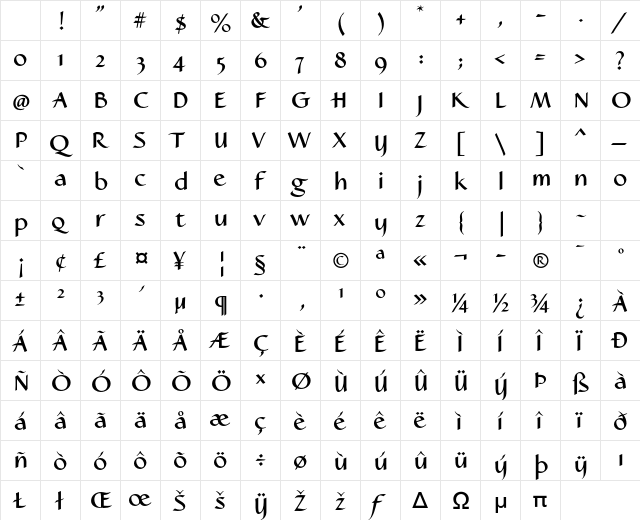
Caterina LT Std is a composed and adaptable typeface that performs quietly and consistently across a wide range of design contexts. Its bold stroke weight gives it real presence on the page.